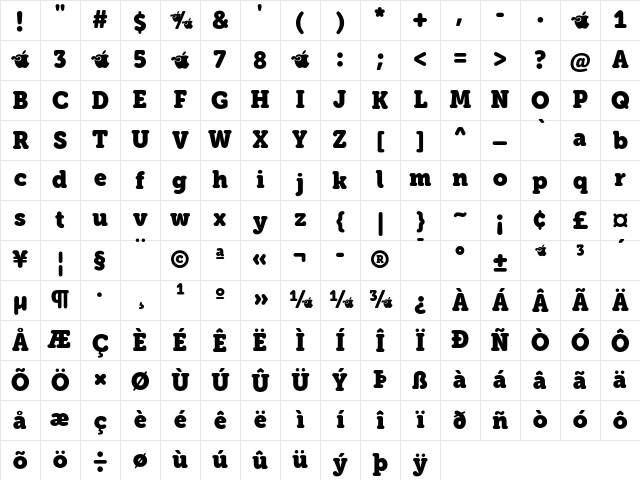
Complete eacologica round slab Regular glyph index. Displaying only characters natively supported by eacologica round slab Regular font.
eacologica round slab features prominent, blocky serifs that give it a confident, grounded presence - equally at home in editorial settings and bold branding work.
Pro Tip: Use eacologica round slab for headlines and subheadings where its slab serifs can make an impression. It also holds up well in mid-size body copy thanks to its sturdy construction.